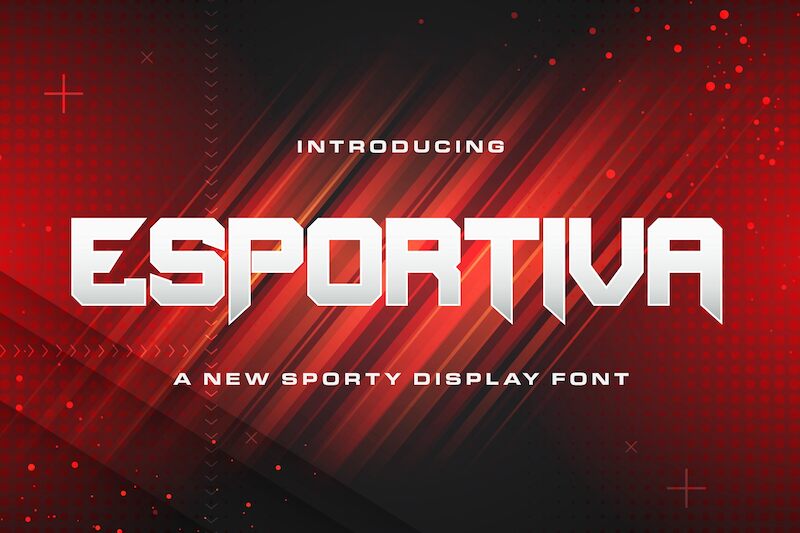
Esportiva
Esportiva font by StringLabs Creative Studio is a techno display font with an expanded width, robust futuristic elements, and angular geometric forms. Its blocky design and solid presence give it industrial influence with minimalist detailing which makes it more visually appealing than other designs in the category.
This free techno display font is suitable for sports events, packaging designs, video games, virtual reality applications, computers or tech sites. Other suitable uses are magazines, automotive designs on cars or motorbikes as well as banners and posters where strong typography may be necessary.